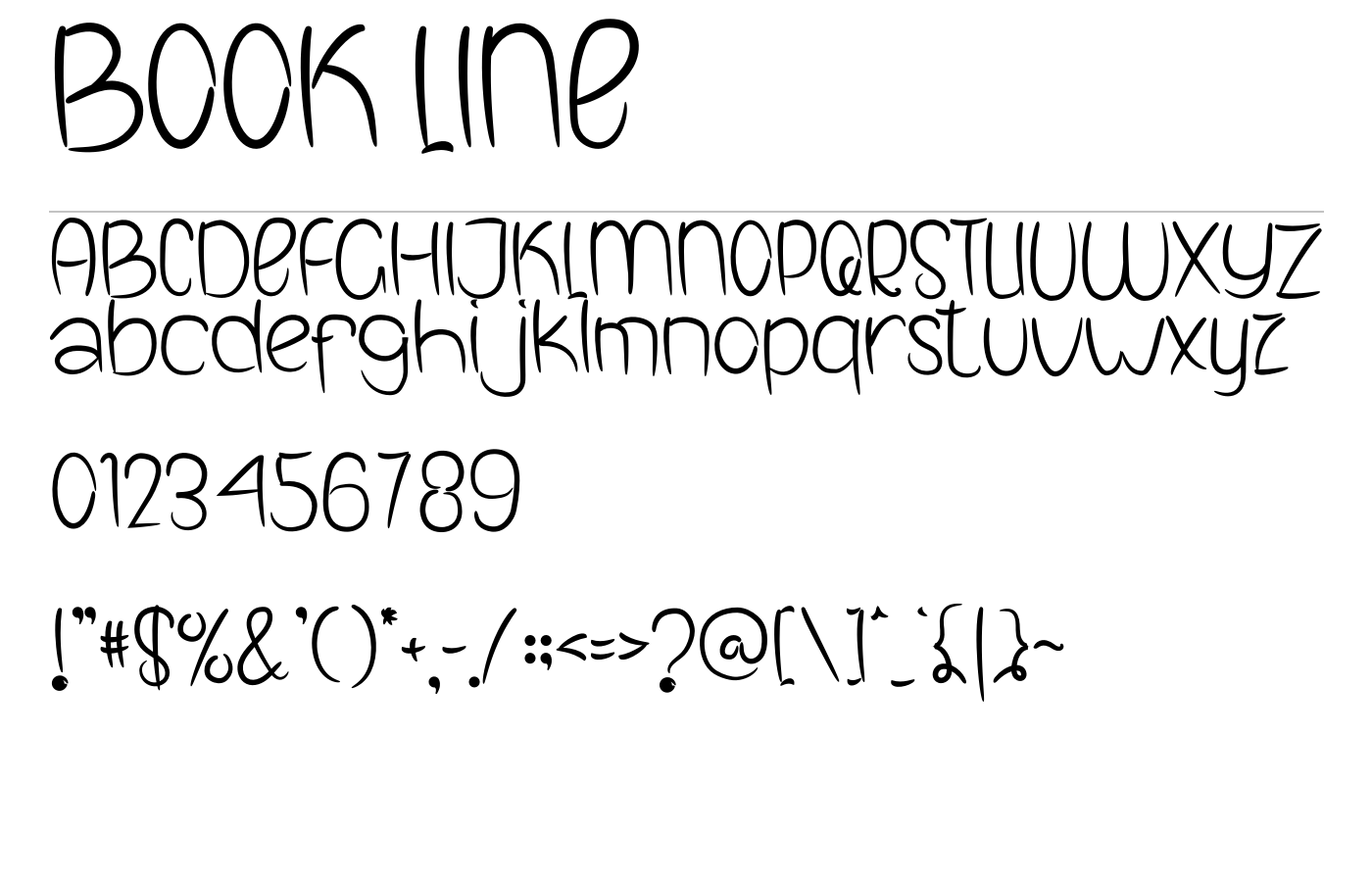
BOOK LINE is a playful and casual handwritten sans serif font with a tall, narrow structure and a light stroke weight that gives it an airy, informal feel. Its thin, slightly irregular lines and rounded terminals create a friendly, approachable personality perfect for creative, youthful, or whimsical branding and designs. This font works well for headlines, children’s products, greeting cards, or any context where a warm, personal touch is desired.